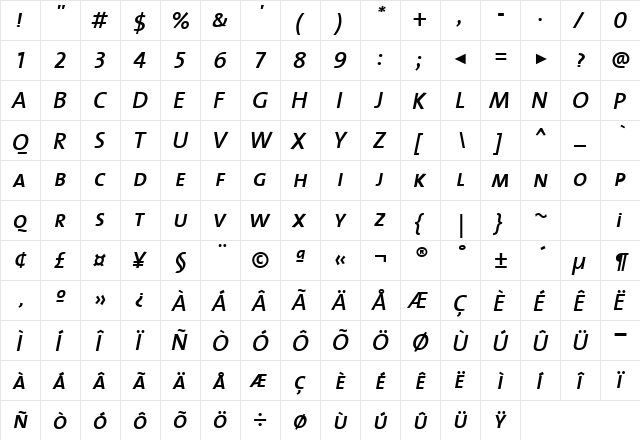
TheSanSemBolCapIta Regular
Design Context for TheSanSemBolCapIta Typeface
TheSanSemBolCapIta takes a measured approach to typography — its balanced proportions and neutral character make it a reliable workhorse for both digital and print work.